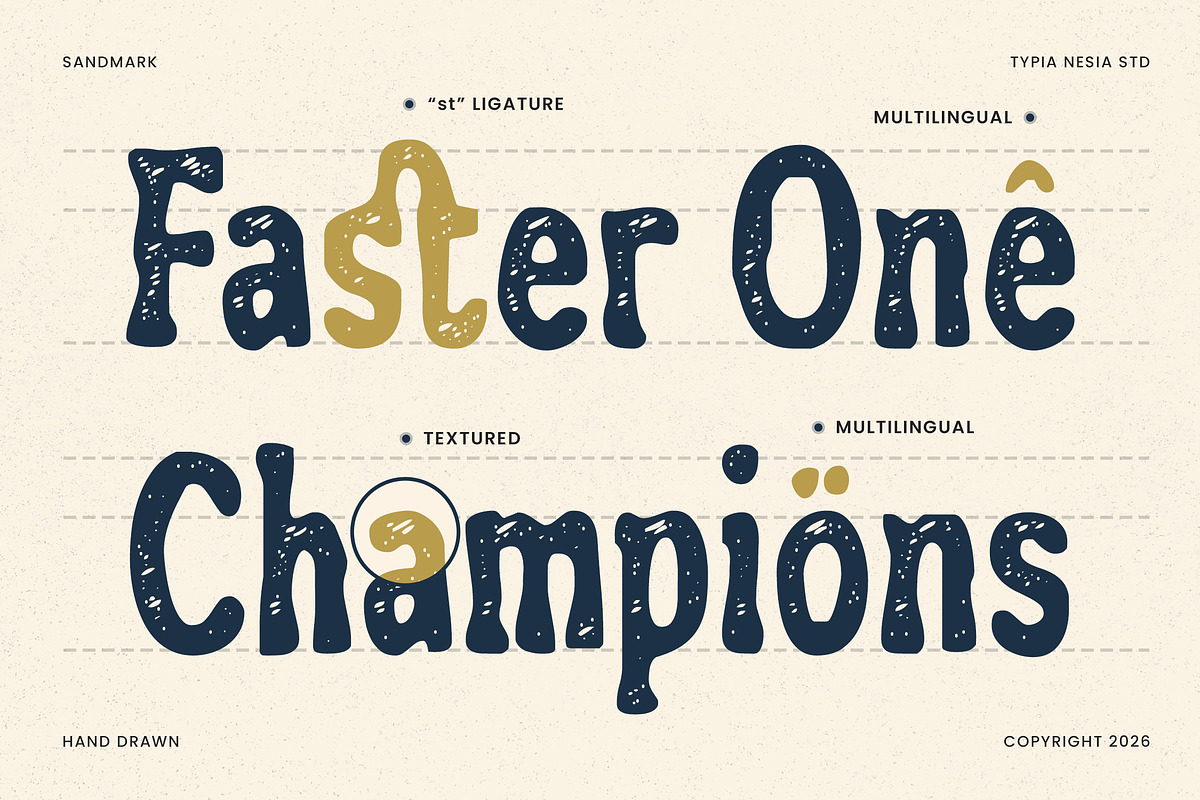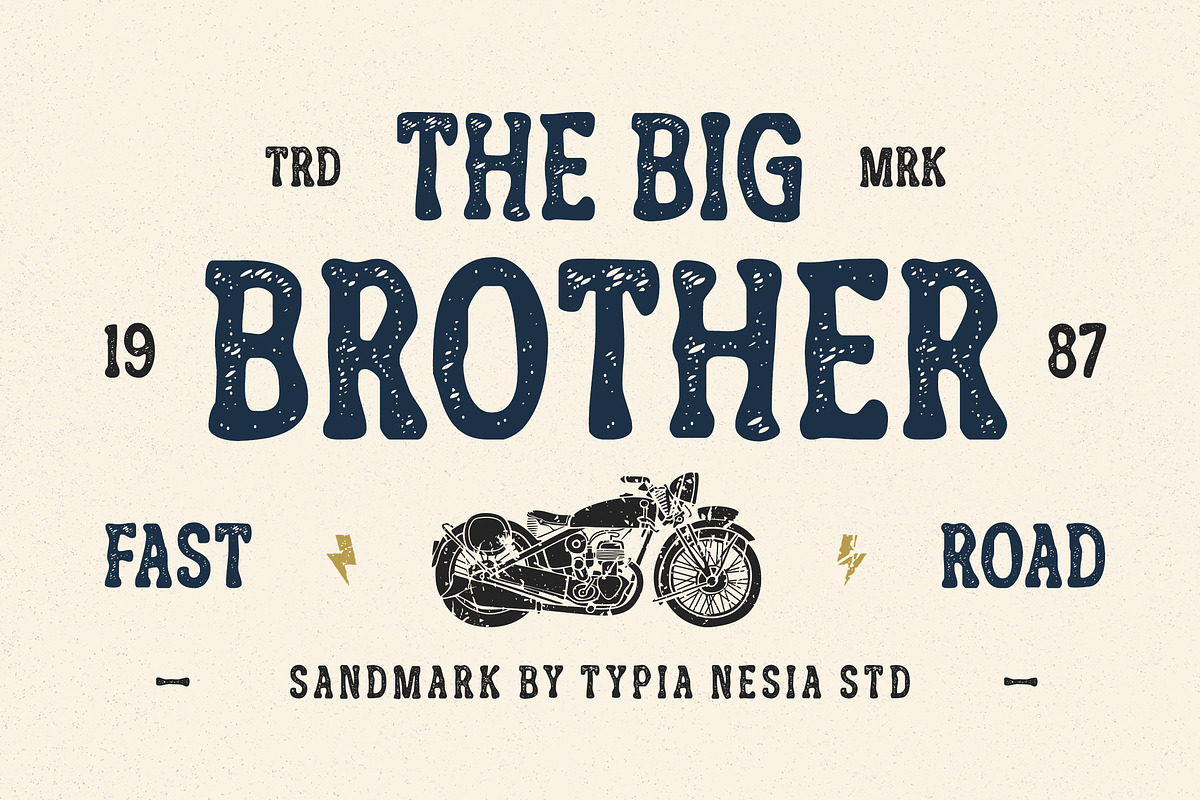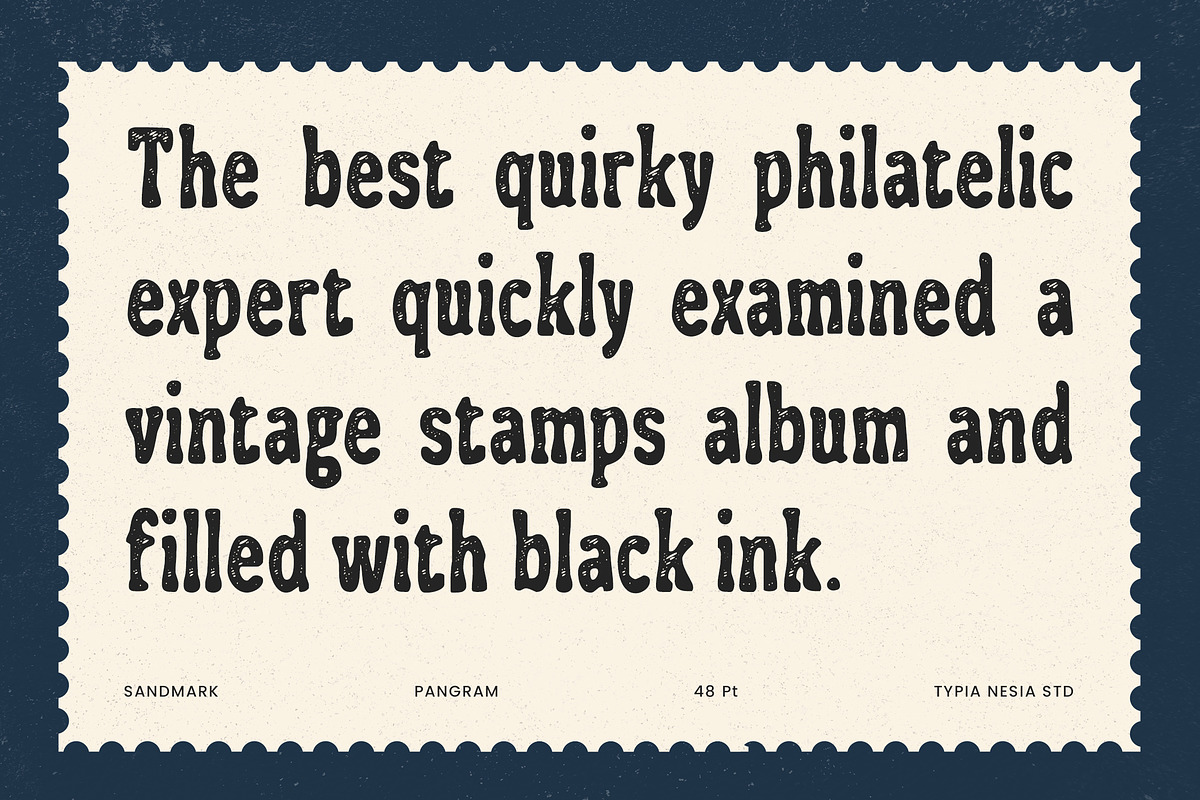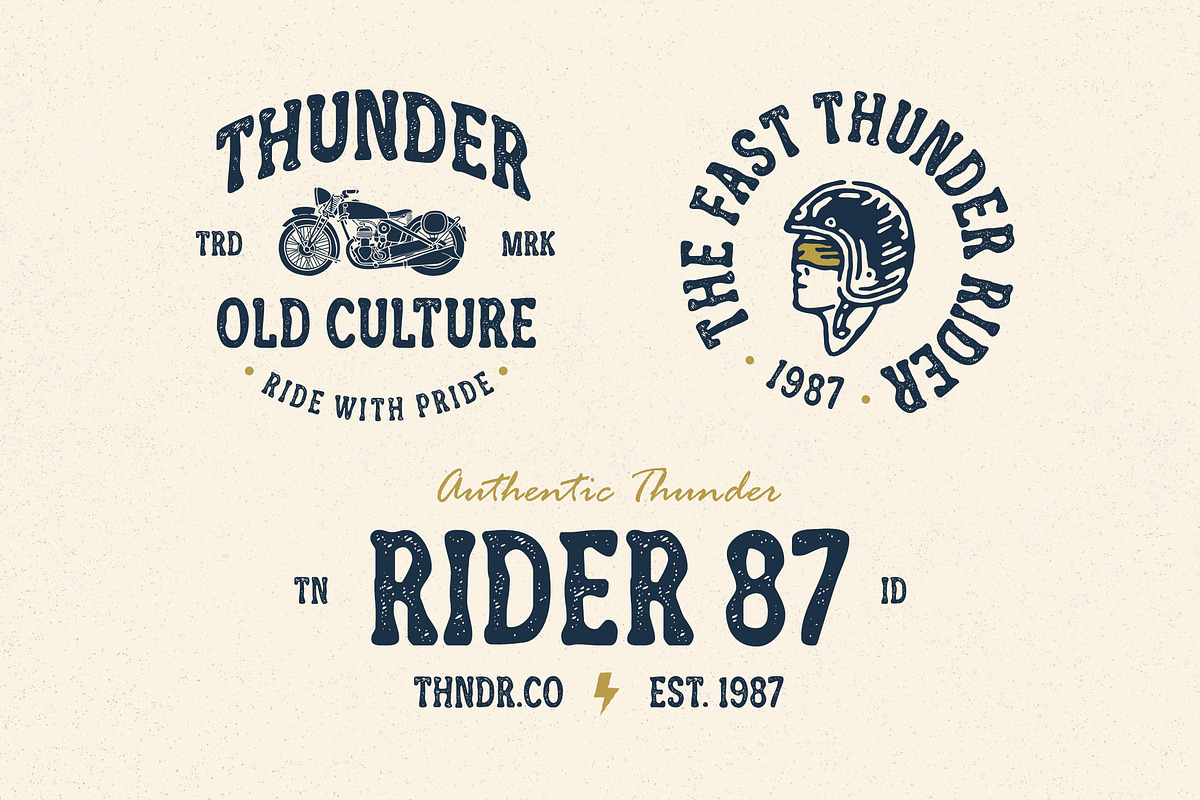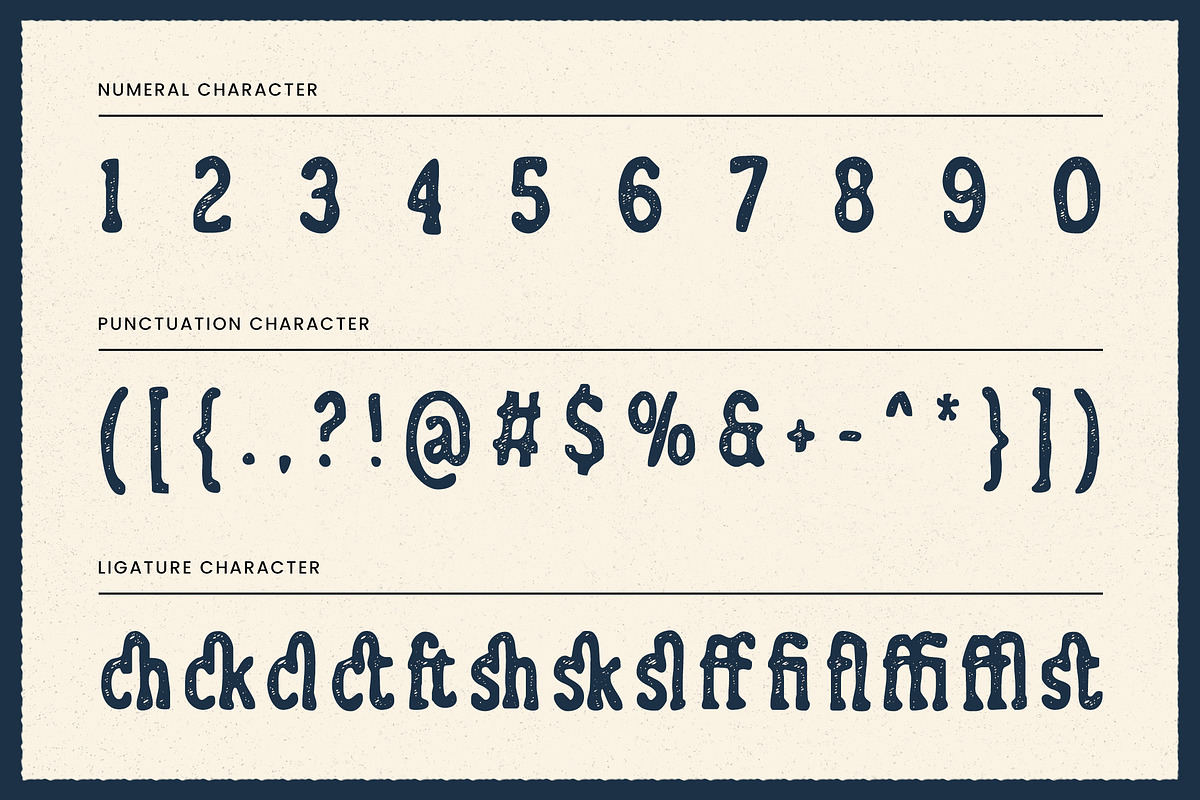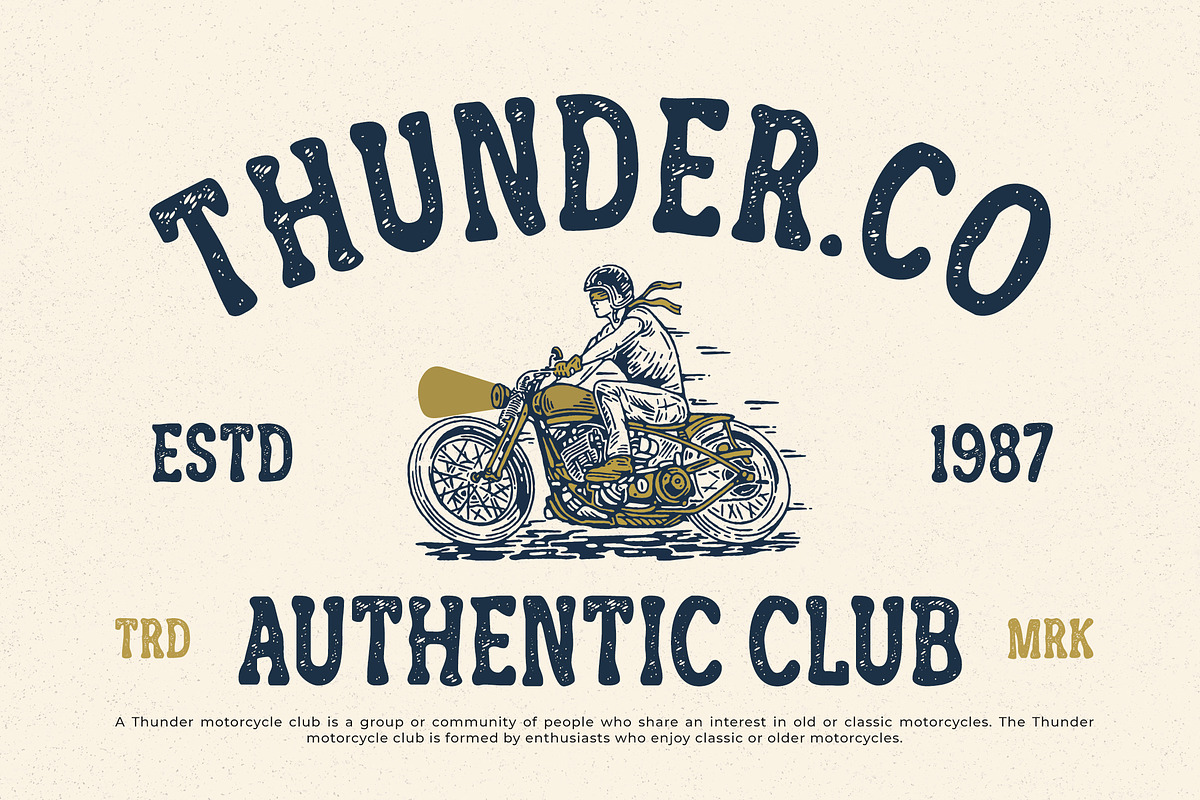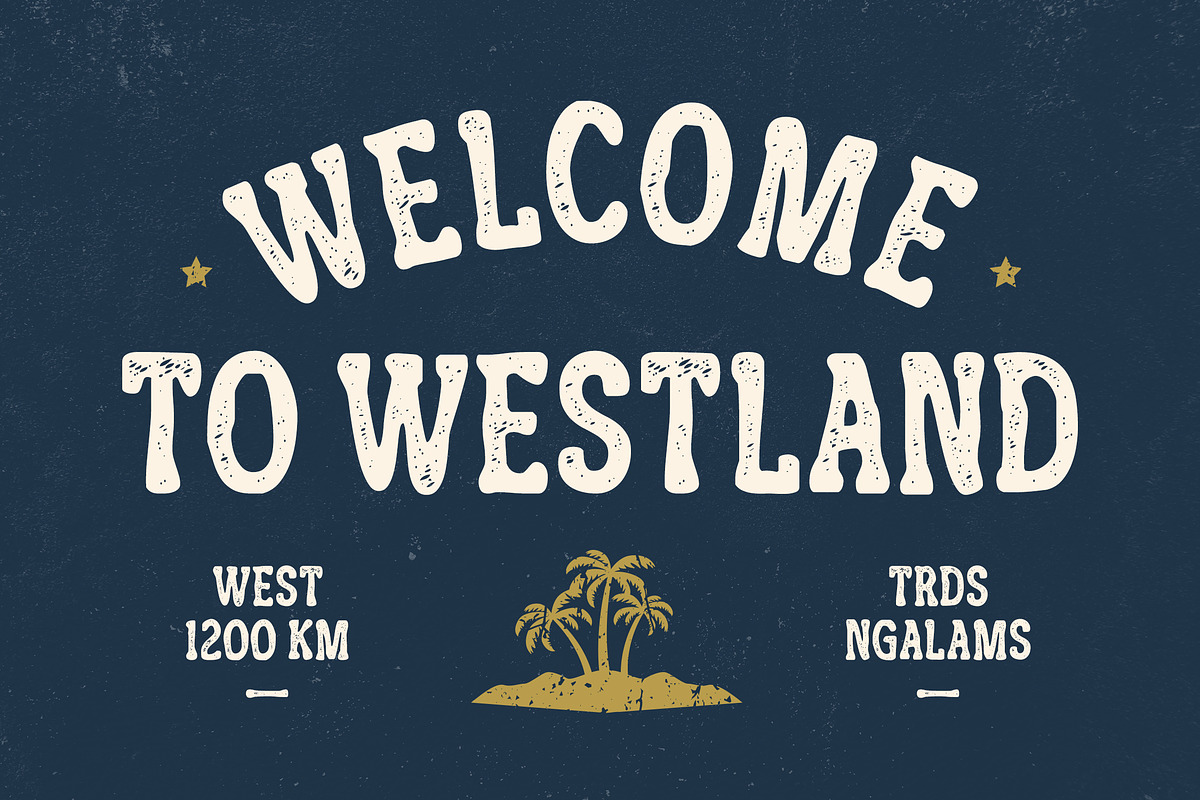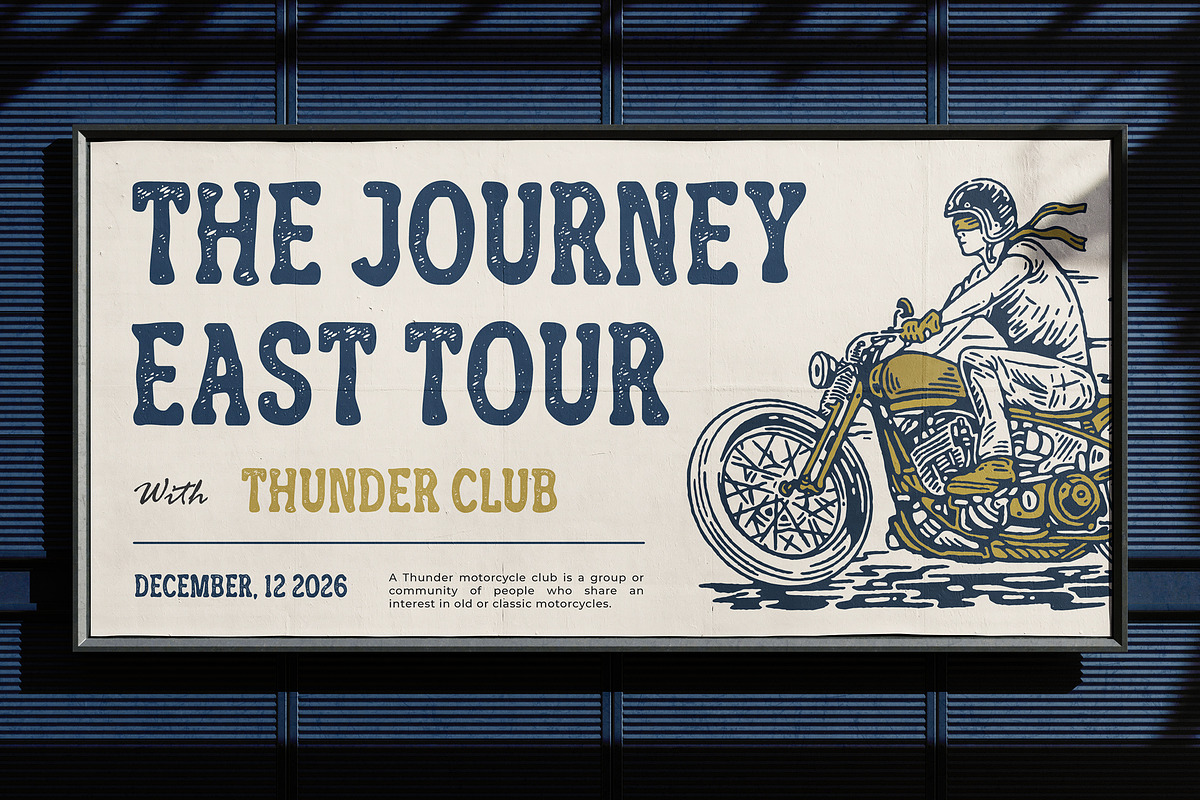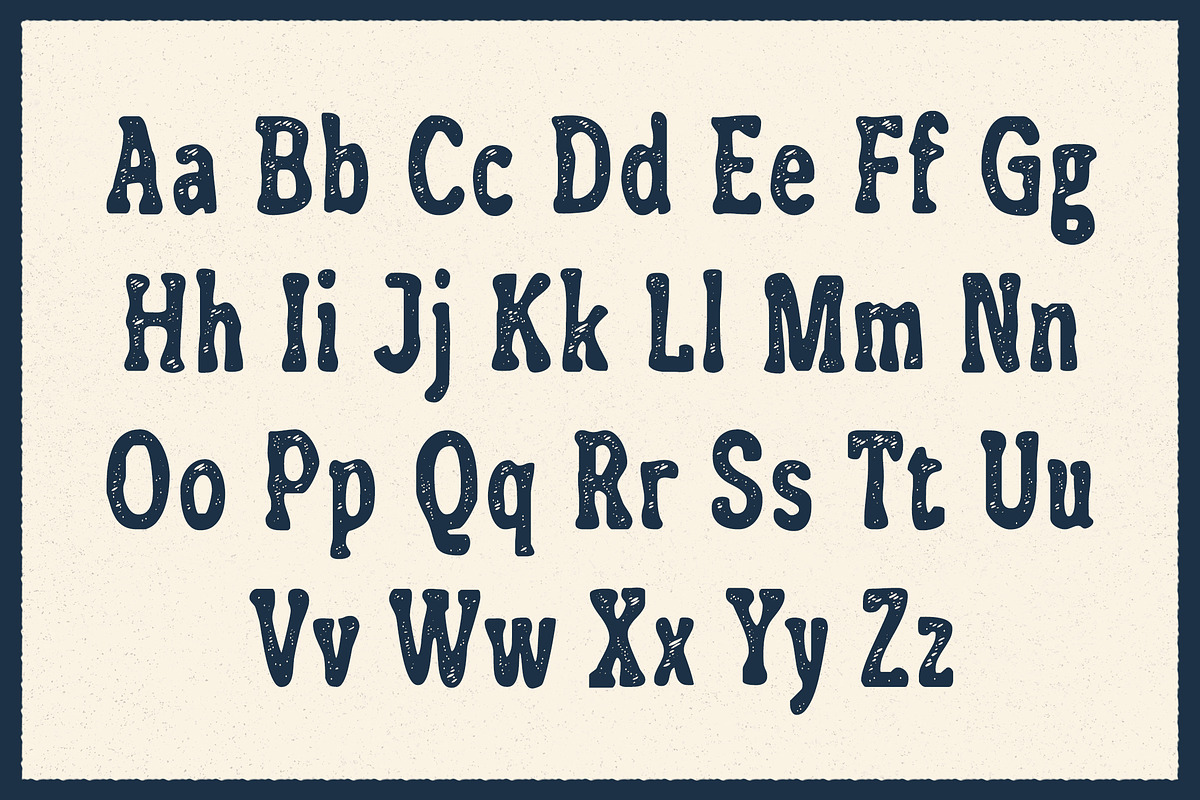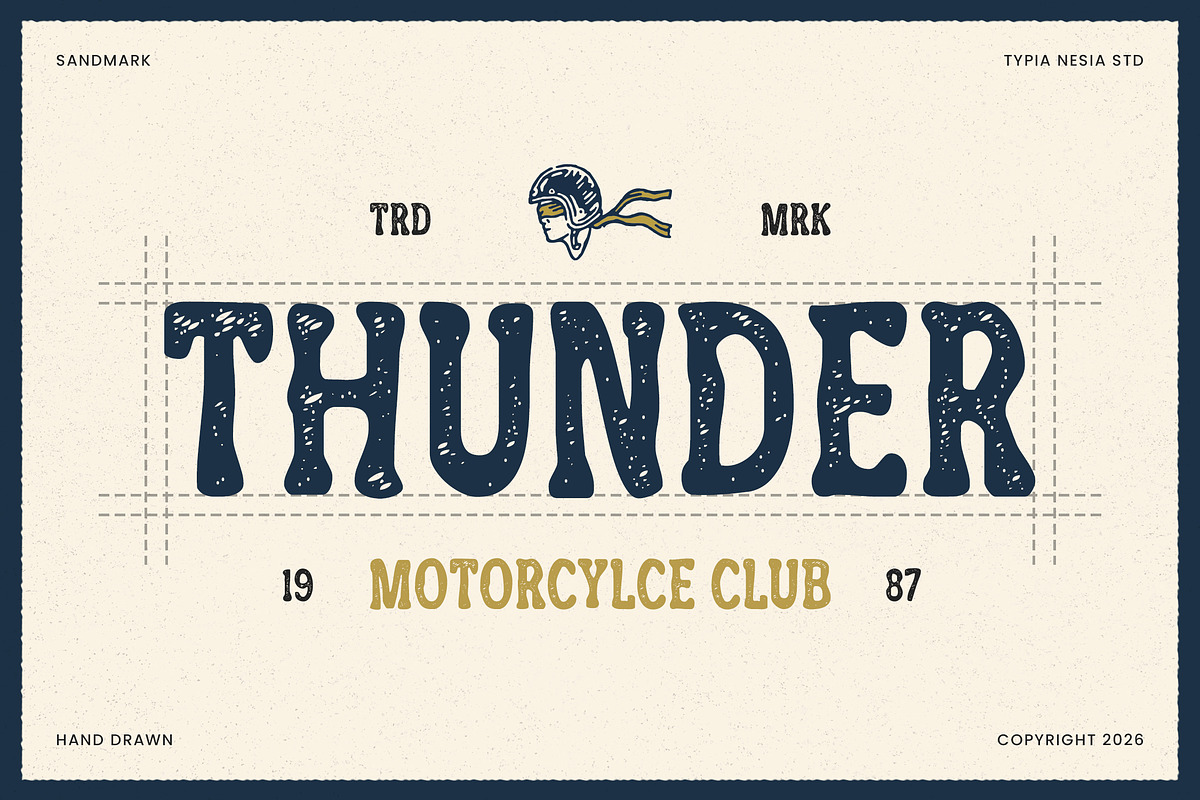
Sandmak – Rough Textured Vintage
Sandmak – Rough Textured Vintage Hand Drawn Font - Outdoor Logo Serif Display Font
Sandmak is a rough textured vintage hand drawn font crafted to bring authentic rustic character and timeless charm into your designs. Featuring hand drawn details, distressed textures, and weathered edges, this typeface delivers a bold vintage look, making it ideal for logo design, branding, posters, packaging, labels, outdoor themes, adventure projects, and western-inspired visuals. The textured letterforms add depth and a raw grunge effect, perfect for designs that need an aged, adventurous, and memorable style.
Add rugged vintage soul to your designs with Sandmak.